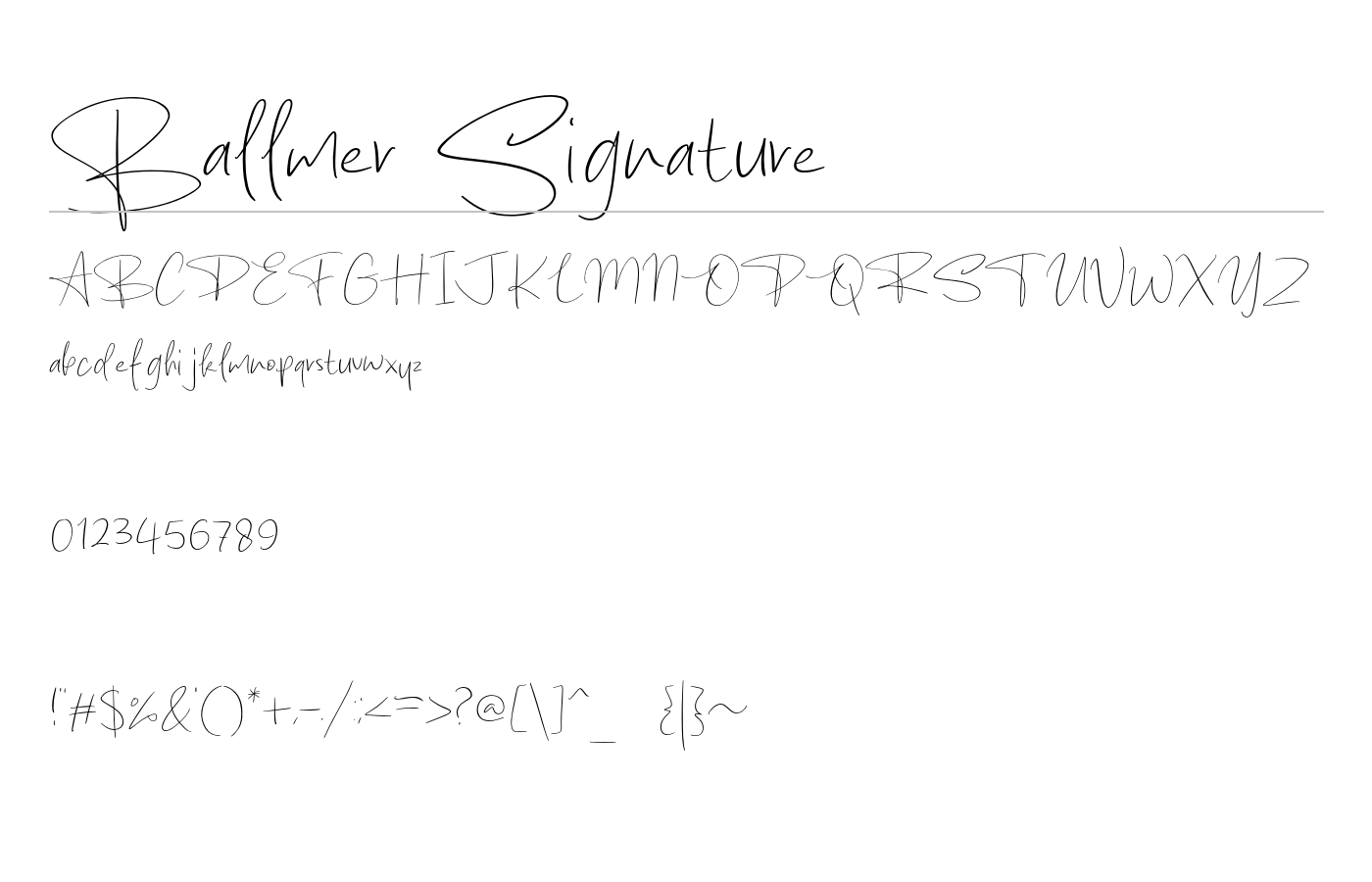
Ballmer Signature is a delicate, handwritten script font that mimics a natural, flowing signature with thin, fine lines and an airy, elegant feel. Its tall, narrow letterforms and high contrast between light strokes create a personal and sophisticated style, ideal for adding a touch of authenticity and refinement to logos, invitations, and branding that seek a unique, hand-crafted look. This font works best in contexts where a graceful, intimate impression is desired rather than for large bodies of text.
Ballmer Signature Font